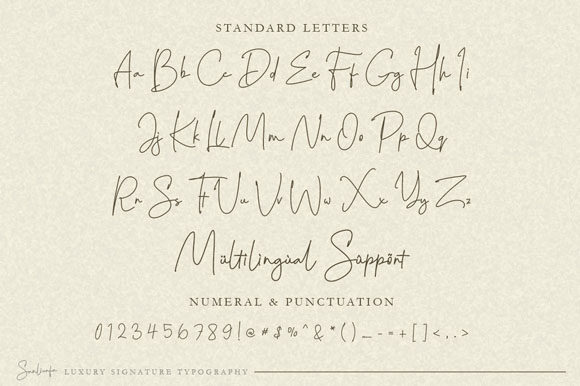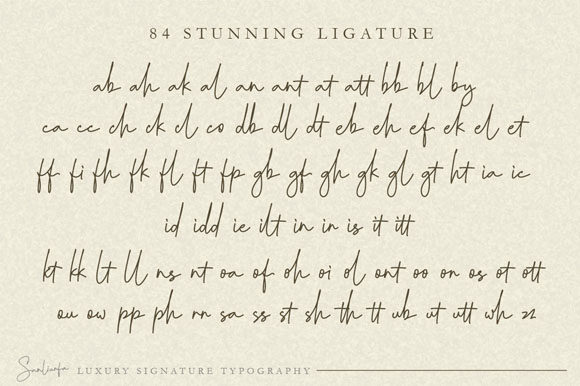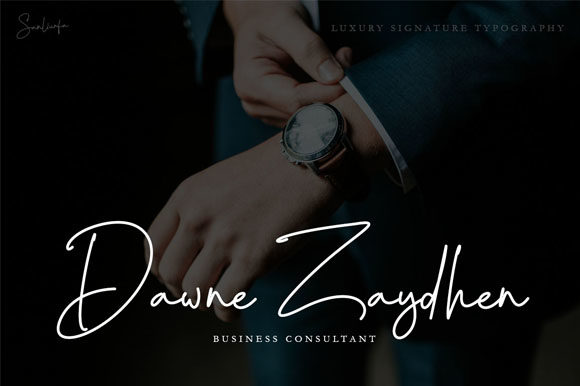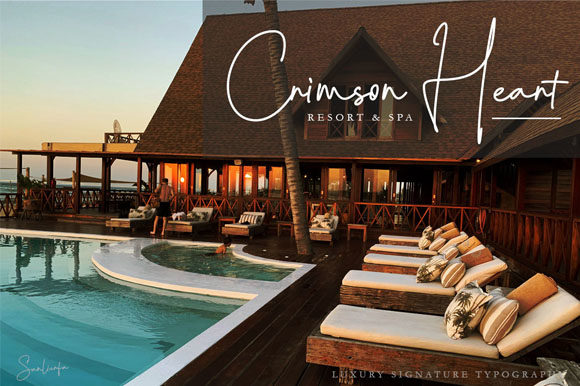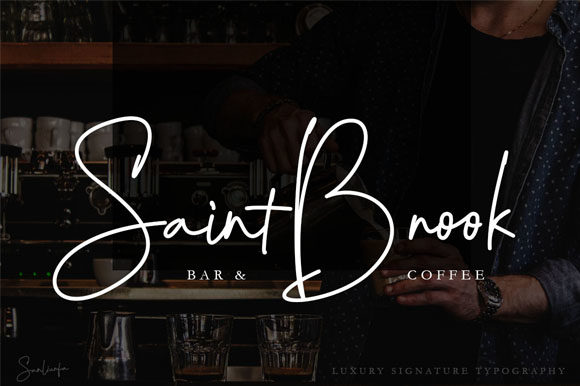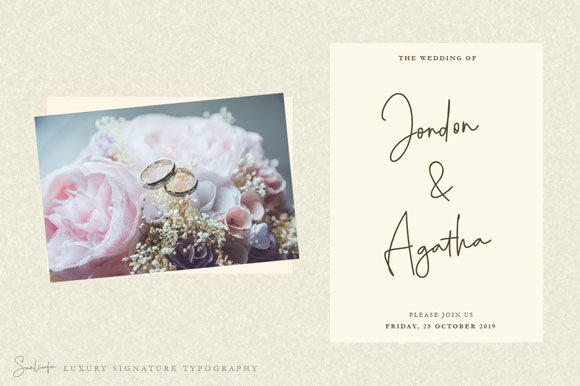
Introduction to Sanliurfa Font
Have you ever found yourself in the midst of a creative project, struggling to find the perfect font to match your vision? The perfect font can make all the difference in bringing your design to life, and that’s exactly what the Sanliurfa Font offers. With its elegant and luxurious script, this font is sure to elevate any design project to the next level.
Whether you’re a seasoned designer or just starting out, the Sanliurfa Font is a valuable addition to your design resource library. Not only is it a high-quality font, but it’s also available for free download, making it an accessible option for designers of all levels. Plus, with its transparent background, you can easily integrate it into your design without any distractions.
Key Features of Sanliurfa Font
- High-quality design resource suitable for various creative projects
- Sanliurfa Font is an ideal design resource for graphic designers, artists, and anyone looking for a unique font
- Unique characteristics: Sanliurfa Font features a distinctive and elegant design, perfect for adding a touch of sophistication to any creative project
Honest Review: Sanliurfa Font
I recently came across the Sanliurfa Font, and I must say it’s been a great addition to my design resource library. One of the things that caught my attention was its high quality and sleek design.
Here are some of the features that work well for me:
- High quality and clear typography
- Transparent background that makes it easy to overlay on images
- Perfect for creative projects that require a modern and sleek feel
While the Sanliurfa Font is great, I do have a few limitations to mention:
- It may not be suitable for projects that require bold or heavy typography
- Some users may find the font too minimalist, lacking in character
Overall, I’m really impressed with the Sanliurfa Font. It’s a great design resource that can elevate any creative project. If you’re looking for a high-quality font with a modern feel, I’d definitely recommend giving it a try.
Tips for Getting the Most Out of Sanliurfa Font
For a transparent background, use the font on a transparent layer or adjust the background color to match the font’s color. This will give your design a professional and clean look.
Sanliurfa Font is perfect for use in logos, business cards, brochures, and other creative projects where a high-quality, elegant font is required.